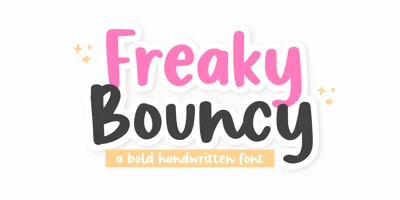
Freaky Bouncy Font
The Freaky Bouncy Font is a wonderfully wild and energetic display typeface, characterized by its exaggerated, irregular forms and a distinctly whimsical, almost chaotic charm. Imagine its lively characters dominating posters for quirky music festivals, adding an outrageous and fun touch to independent comic book titles, or creating hilarious headlines for playful social media campaigns and informal announcements. Its distorted shapes, often with a bouncy or uneven baseline and unexpected angles, also make it an excellent choice for unique greeting cards, wildly fun party invitations, creative craft projects, and any design where a zany, imaginative, and unpretentious feel is desired. Whether you're aiming for a silly, rebellious look or a distinctly artistic touch with an unconventional flair, Freaky Bouncy Font delivers with its undeniable personality, ensuring your visuals are both inviting and truly memorable.
What makes Freaky Bouncy Font so exciting is its ability to infuse designs with immediate joy and a sense of boundless, unhinged imagination, breaking free from traditional elegance and precision. In a visual landscape that often benefits from a touch of outrageous fun, this font offers a refreshing alternative that captures attention with its distinctive and energetic letterforms. It’s more than just a typeface; it’s a tool for storytelling, allowing designers to convey warmth, playfulness, and a sense of adventure effortlessly. This font excels at creating an emotional connection with the audience, making content feel more accessible and enjoyable, particularly for younger demographics or projects with a whimsical theme. Designers will find it an invaluable asset for creative projects that require a unique visual identity that truly stands out from the crowd.
The Freaky Bouncy Font family is typically designed to offer a delightful range of styles, enhancing its versatility across various creative applications. Beyond the foundational Freaky Bouncy Regular typeface, you might discover playful companion styles such as a slightly bolder Freaky Bouncy Bold for stronger emphasis, or subtle Freaky Bouncy Outline or Freaky Bouncy Shadow versions that add a different visual texture and dimension. Given its whimsical and often cartoon-inspired nature, the family may also include unique ligatures, alternate characters, or dingbats that perfectly complement its overall character, allowing for even greater customization. These diverse family members provide designers with the flexibility to craft engaging typographic compositions, ensuring visual consistency and maximum creative expression from prominent titles to smaller decorative elements, all while maintaining the font’s inherent charm.